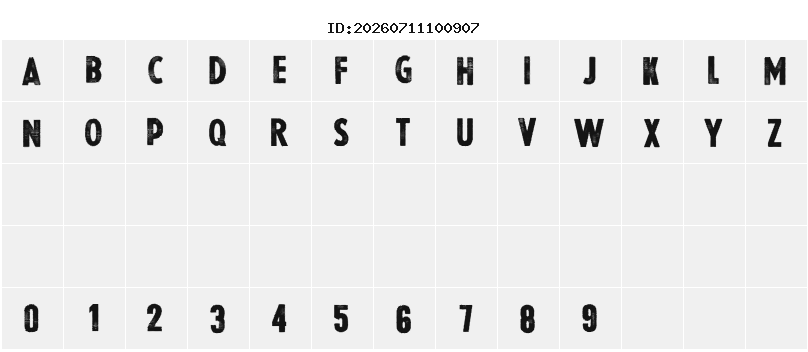
• Font Name: Halftoned Backup
• Designer: Imagex
About Halftoned Backup.ttf
Halftoned Backup.ttf is a modern, elegant sans-serif font designed for ultimate readability and visual harmony. Perfect for branding, headlines, web design, and print materials.